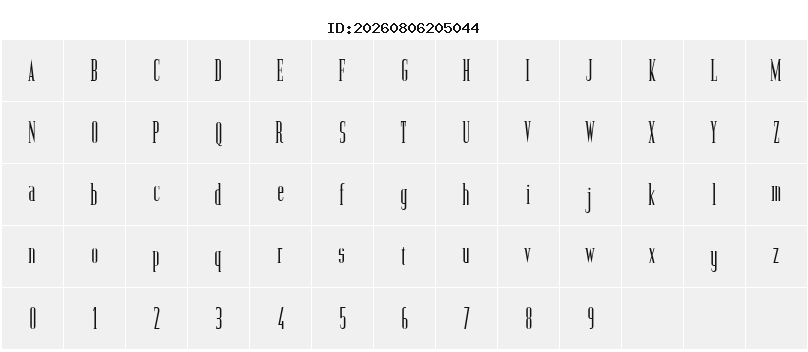
• Font Name: Offbeat
• Copyright: 251 [T-26] 1998 designed by Fontomas/Marco Tancredi & Alessandro Colizzi. Post Script ID 5105973. [T-26] item T0574. visit www.t26font.com.
Offbeat.ttf is a modern, elegant sans-serif font designed for ultimate readability and visual harmony. Perfect for branding, headlines, web design, and print materials.